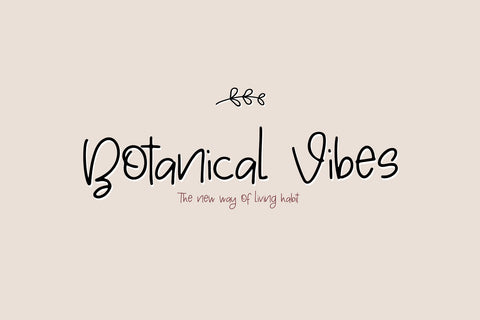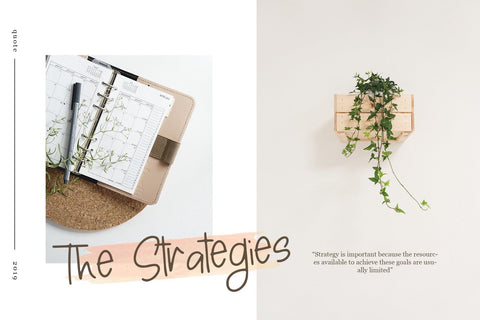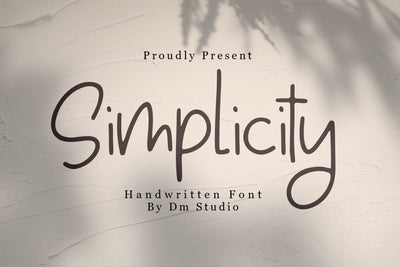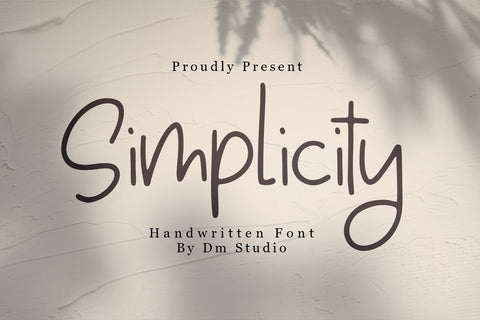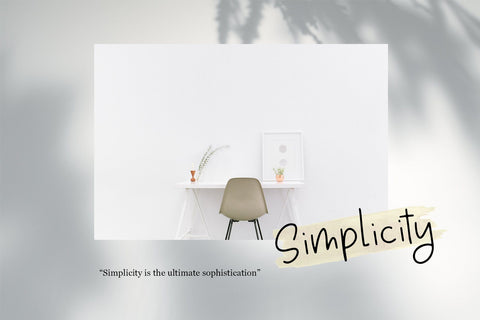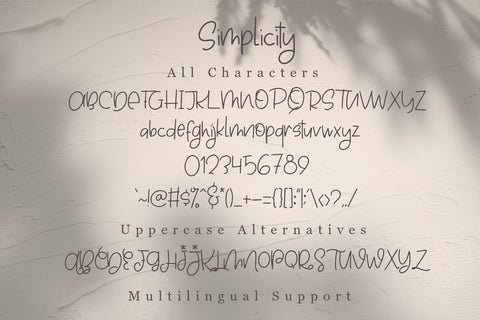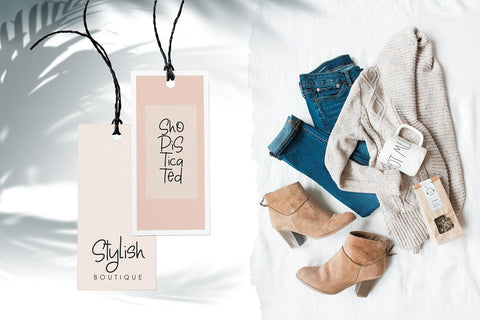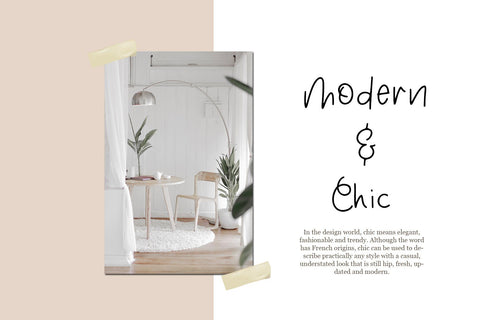
Simplicity - Handwritten Font
Introducing : Simplicity the Handwritten Font
It's a modern, chic and stylish handwritten font, that gives the catchy design on your website, template, blog, photo caption, crafting, business promotion, social media posts, quotes and much more!
Including uppercase alternative characters option to make your design looks more gorgeous!
- Uppercases
- Lowercases
- Numerics
- Symbols
- Uppercases Alternatives